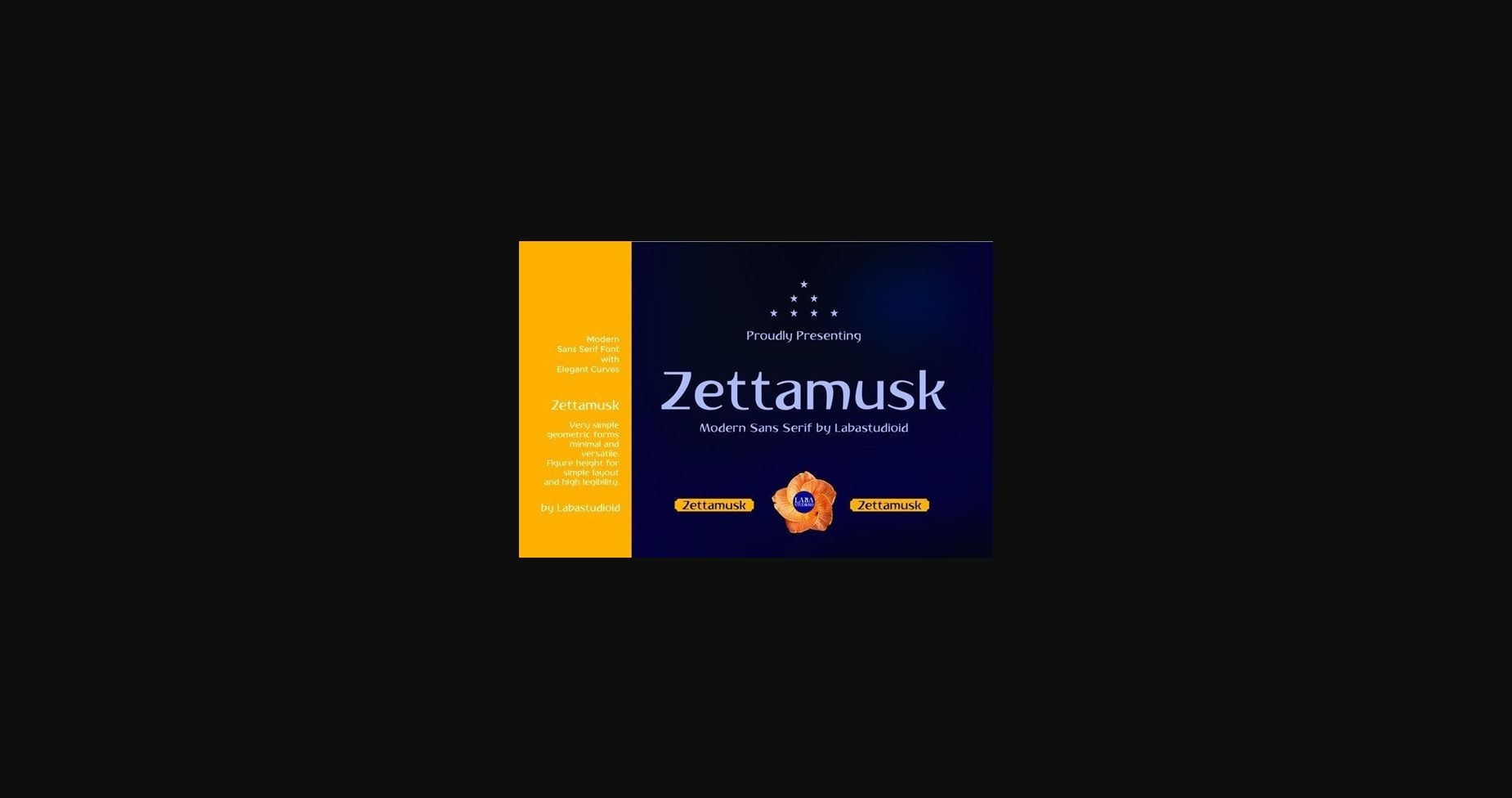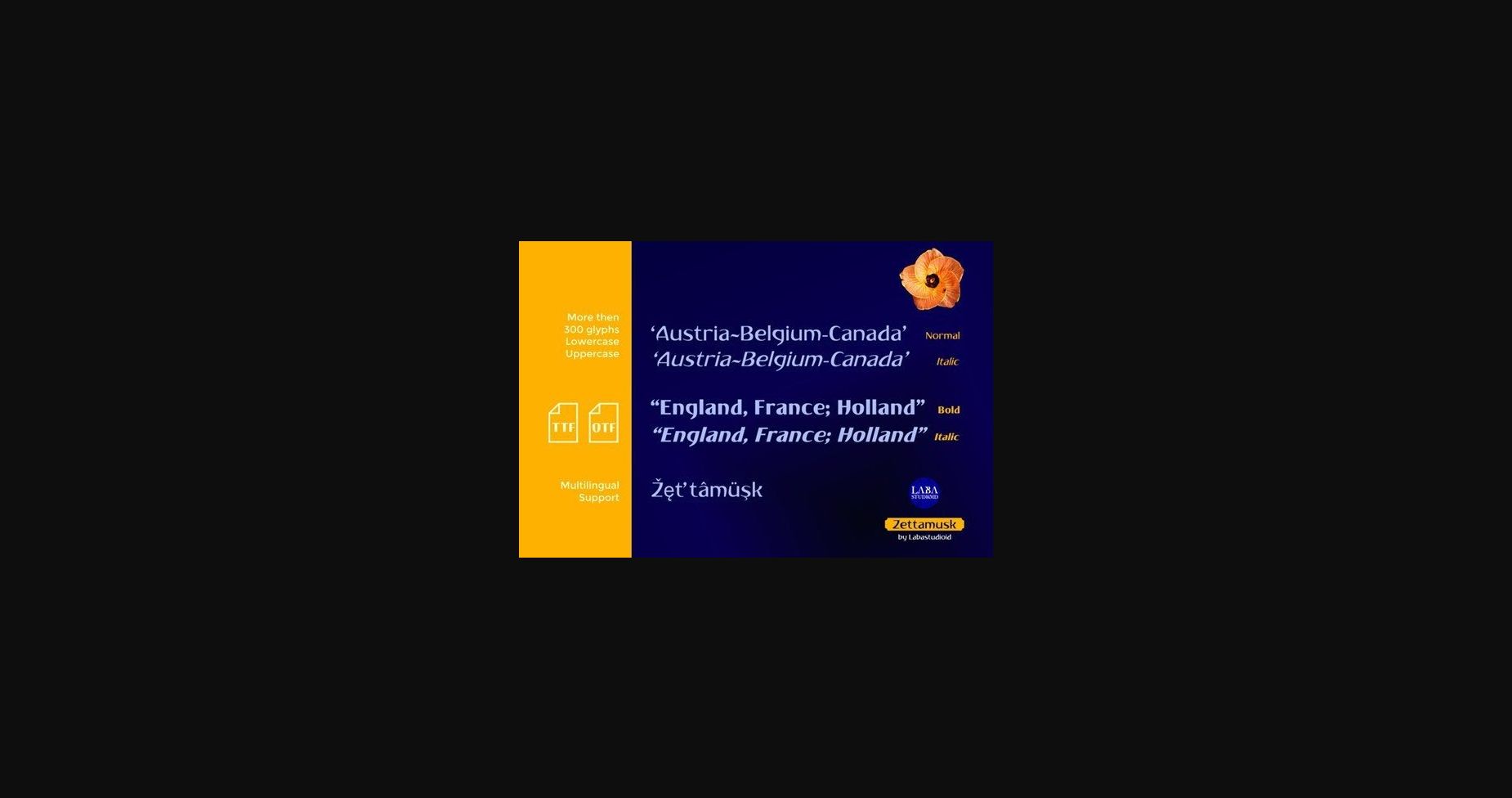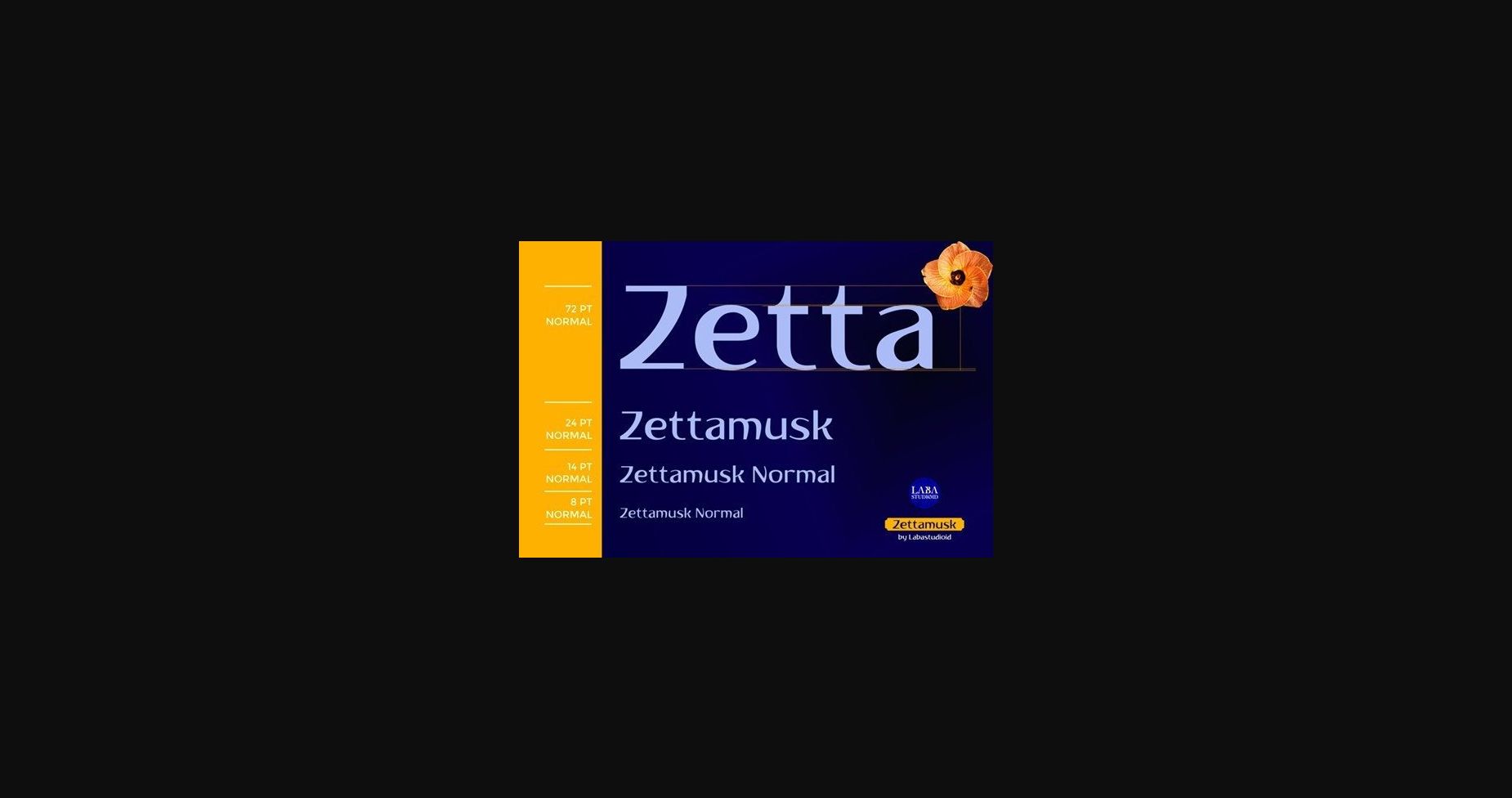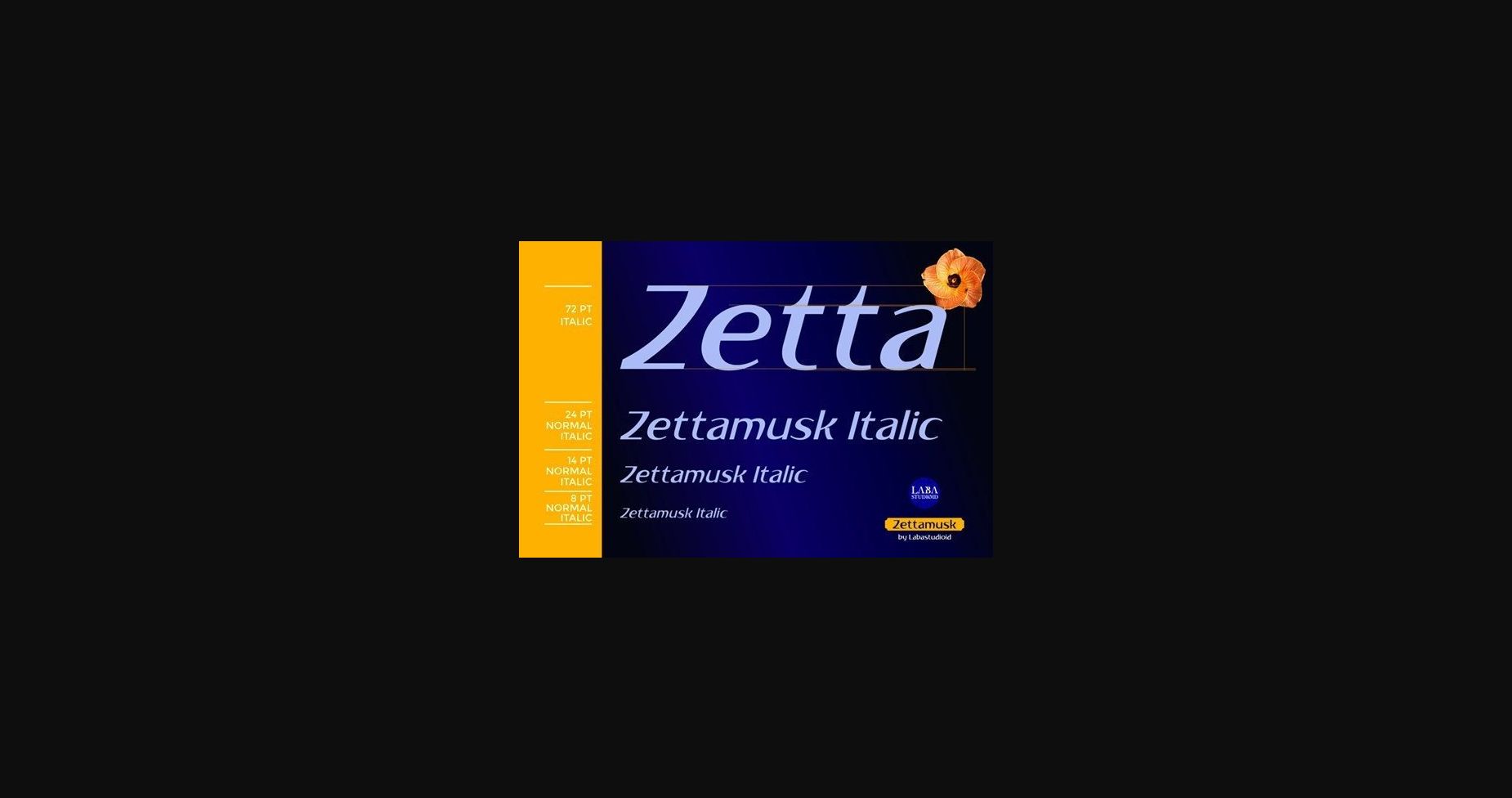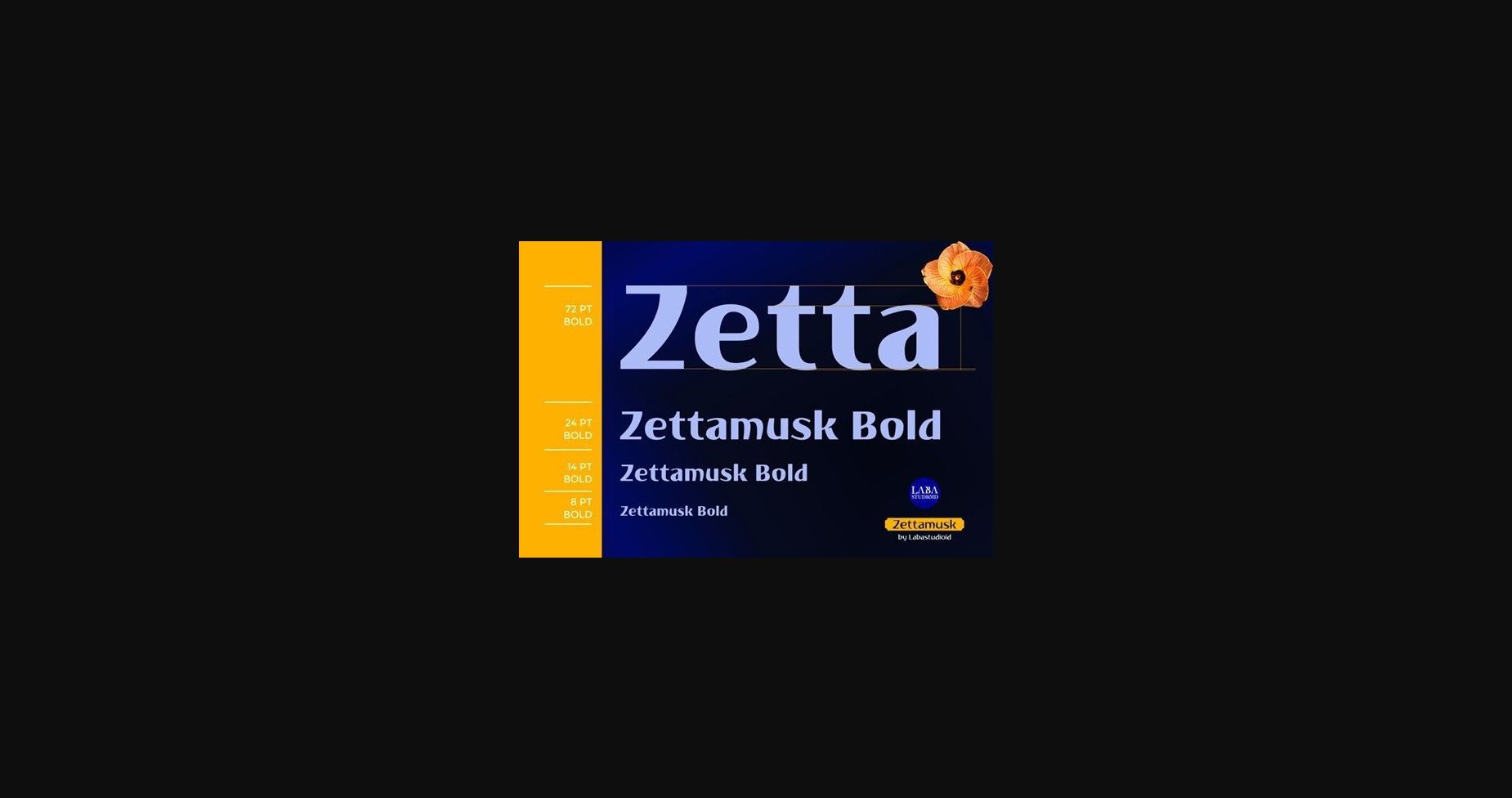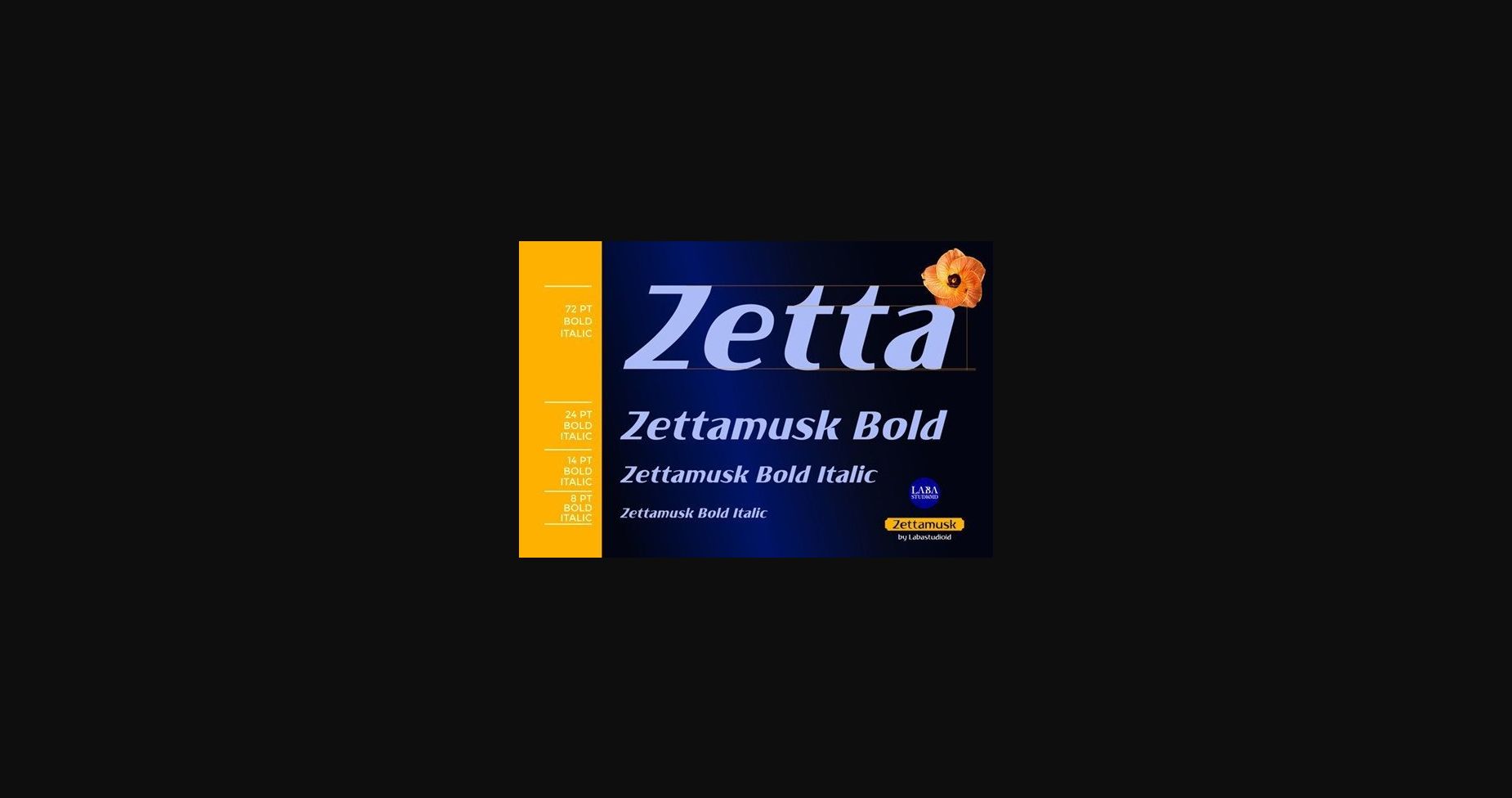
Zettamusk is a bold modern high-contrast sans serif typeface. Whatever the topic, this font will be a wonderful asset to your font library, as it has the potential to enhance any creation.